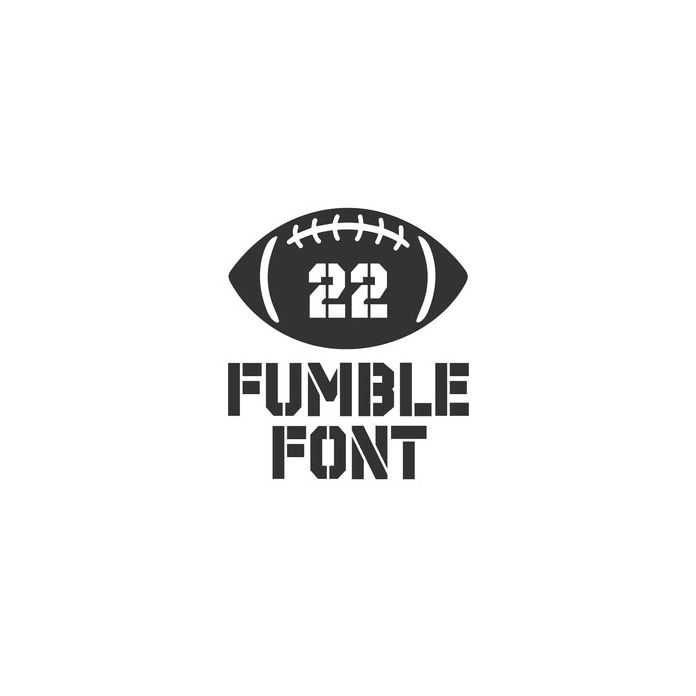
BFC Fumble Football Stencil Font
Fumble is a football monogram font. This font includes the font Home Team Stencil combined with a football element that you can find by using the + and * keys. Layer the numbers and football to create your own unique design.